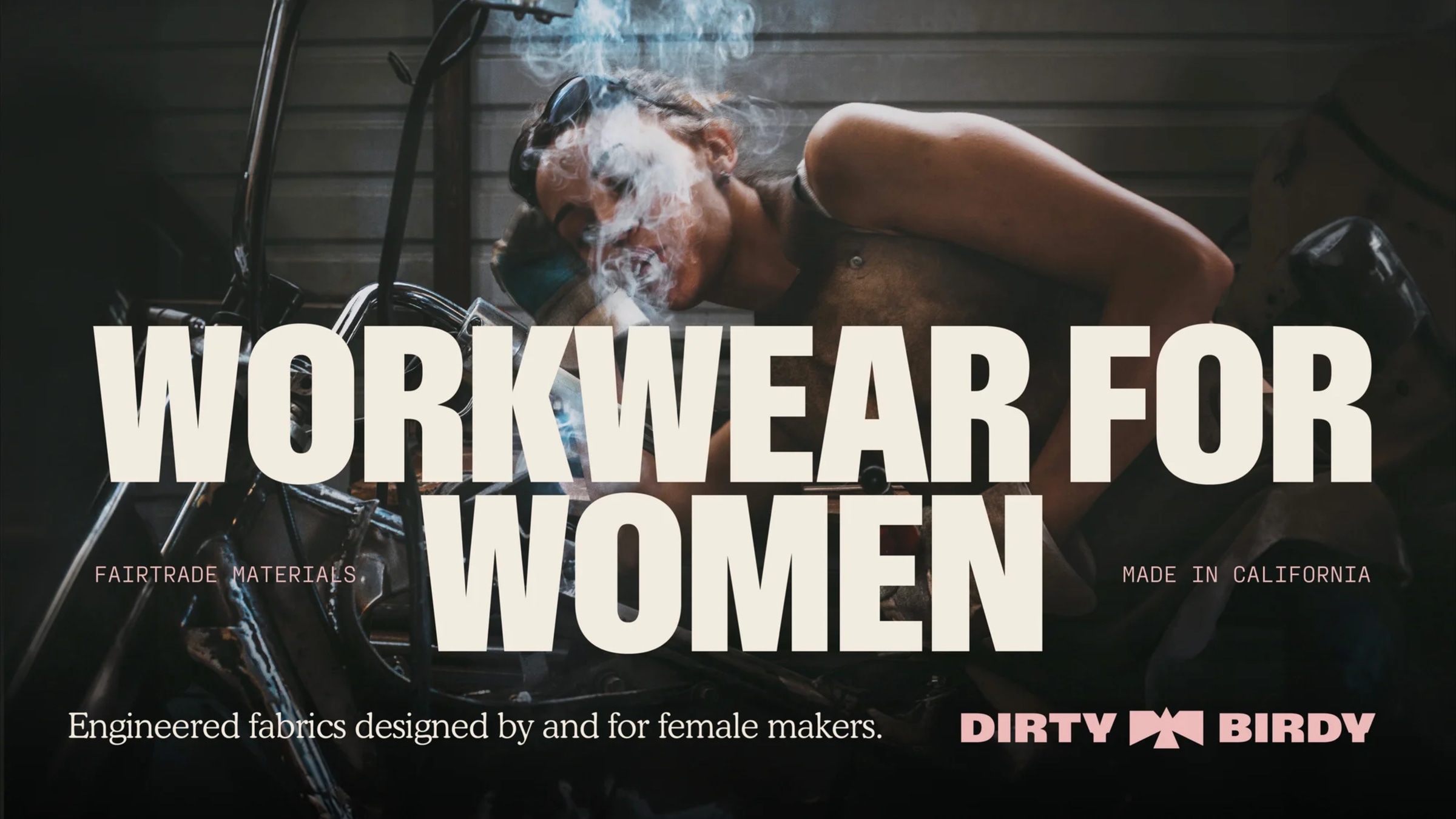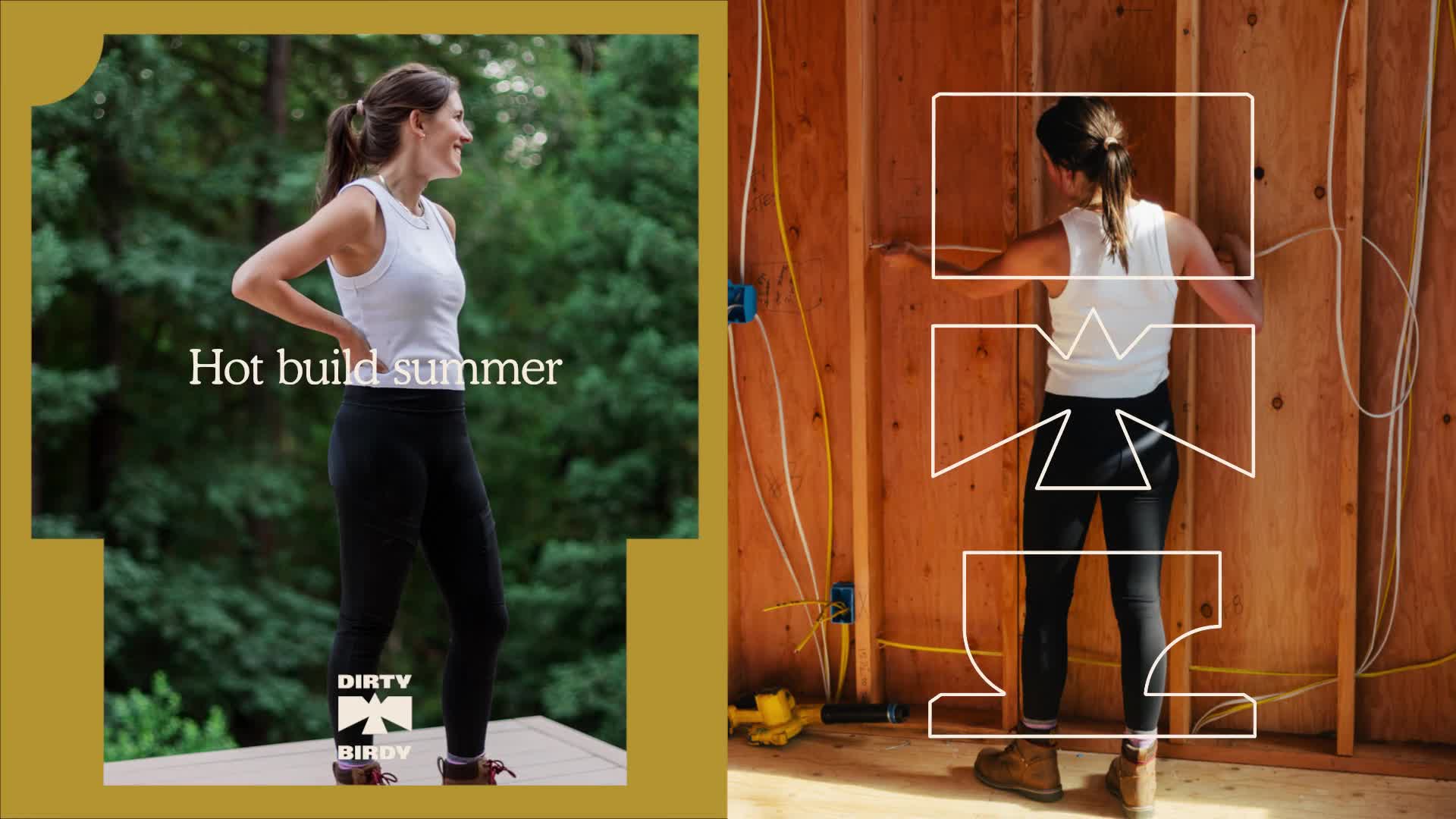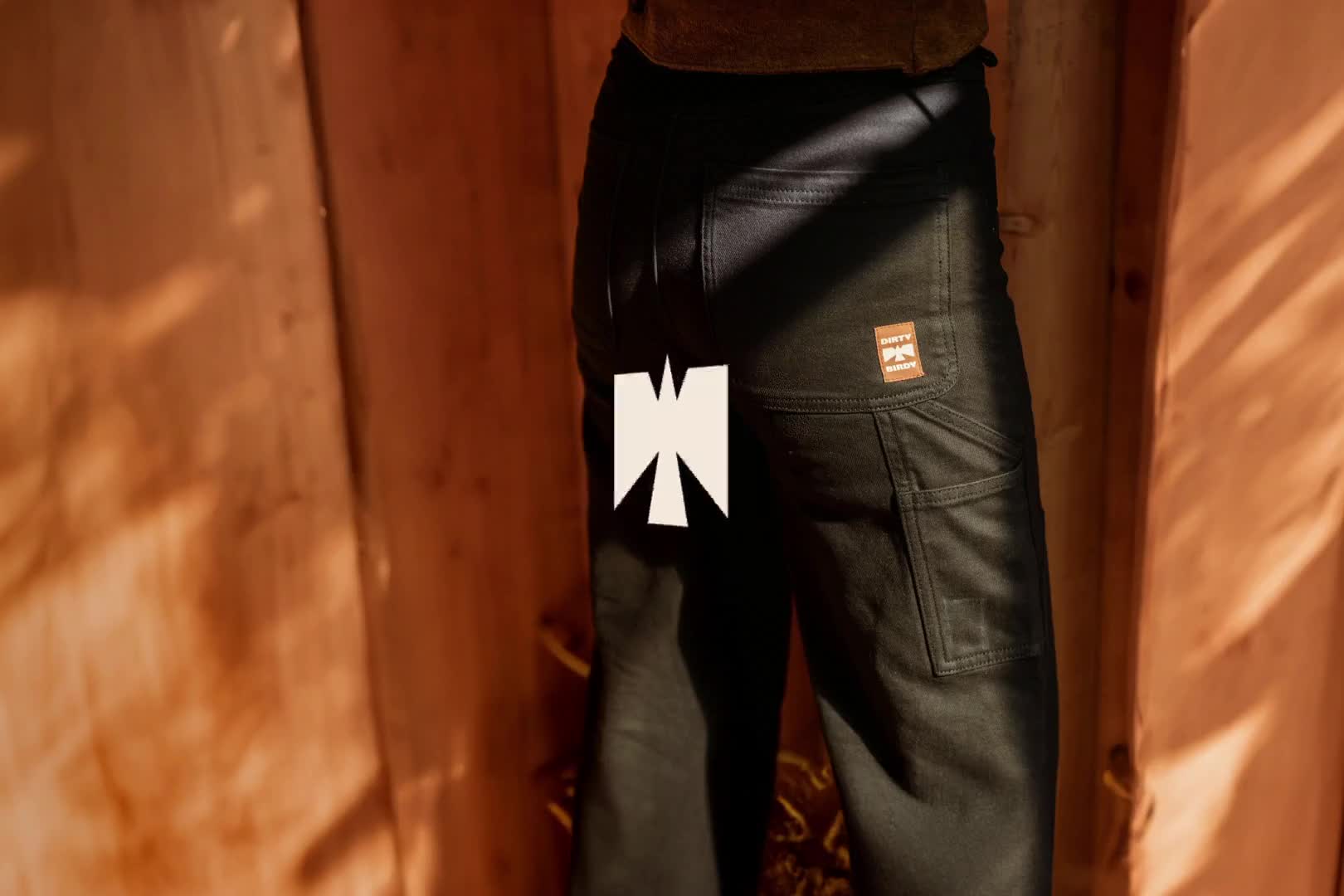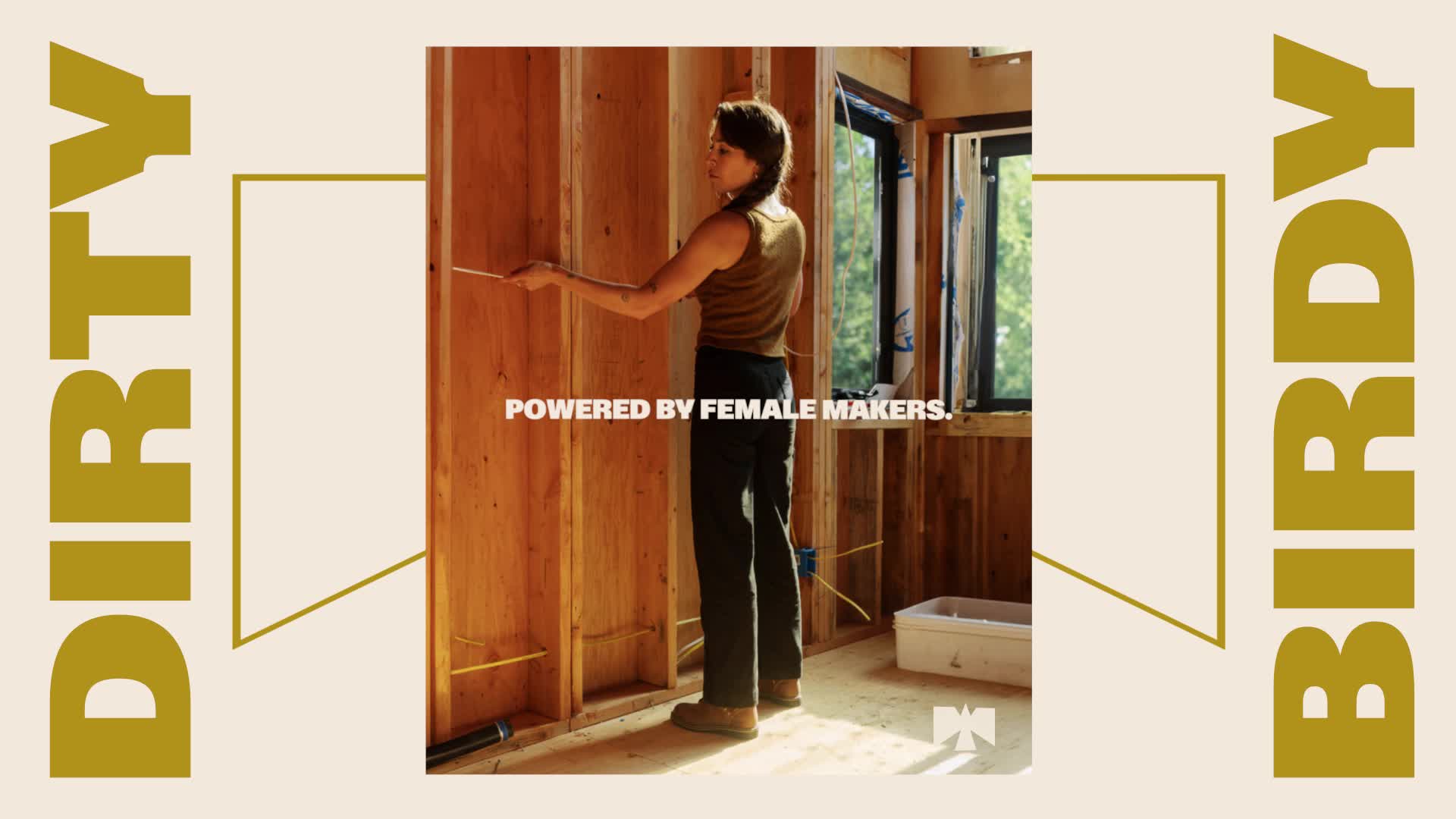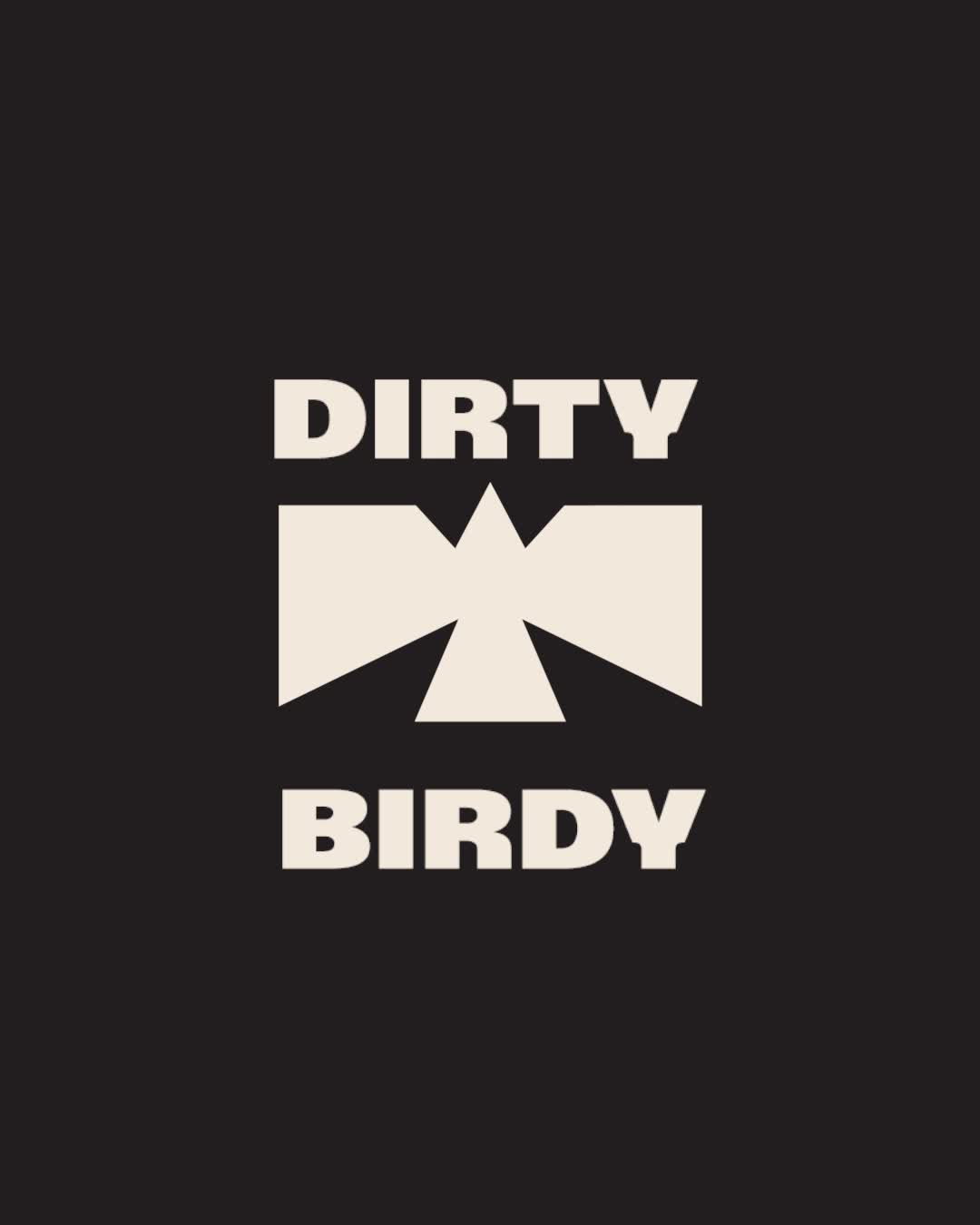
Dirty Birdy
Axe meets dove in the logo for tough-but-feminine workwear. Mixing sturdy sans with Cooper BT for warmth nails that hard/soft balance. Perfect typographic tension.